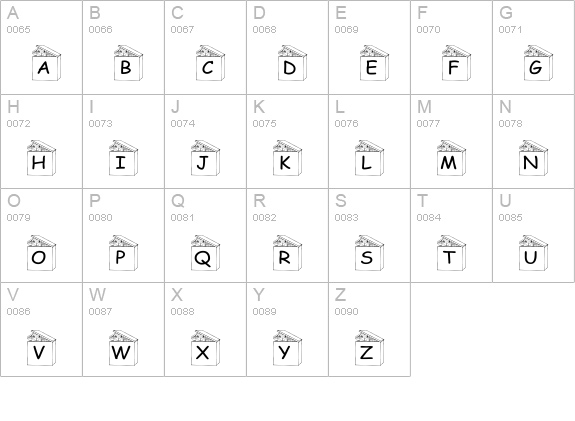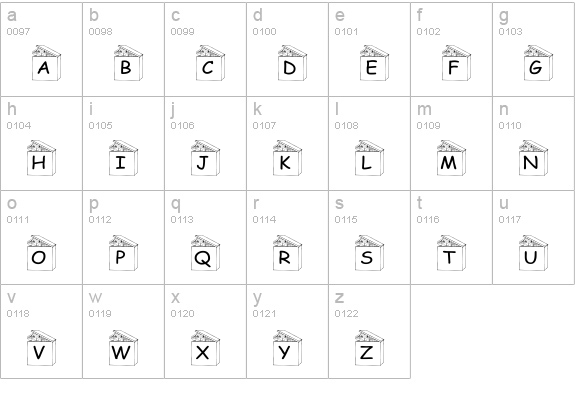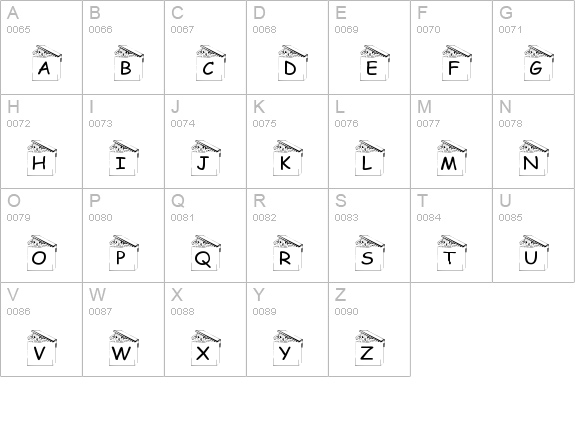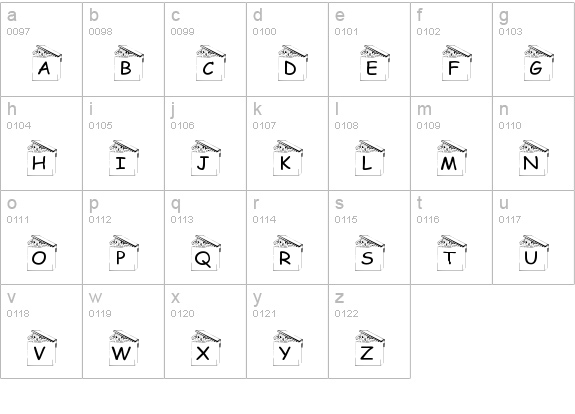
pf_rabbit in a box Font Details
Introducing pf_rabbit in a box font - a mesmerizing display typeface that will bring a touch of whimsy and playfulness to your designs. This unique font showcases each letter encased in an adorable little box, adding a charming and distinctive element to any project. With its quirky yet elegant design, pf_rabbit in a box font is perfect for a wide range of creative endeavors. Whether you are designing a logo, crafting eye-catching headlines, or creating stunning invitations, this font will effortlessly captivate your audience. But the best part? pf_rabbit in a box font is available for free! That's right, you can easily download this delightful font from FontsMarket.com without spending a dime. Now, you can add a touch of creativity and personality to your designs without breaking the bank. So why wait? Embrace the whimsical allure of pf_rabbit in a box font and let your imagination run wild. Download it for free at FontsMarket.com and start adding a playful twist to your designs today!